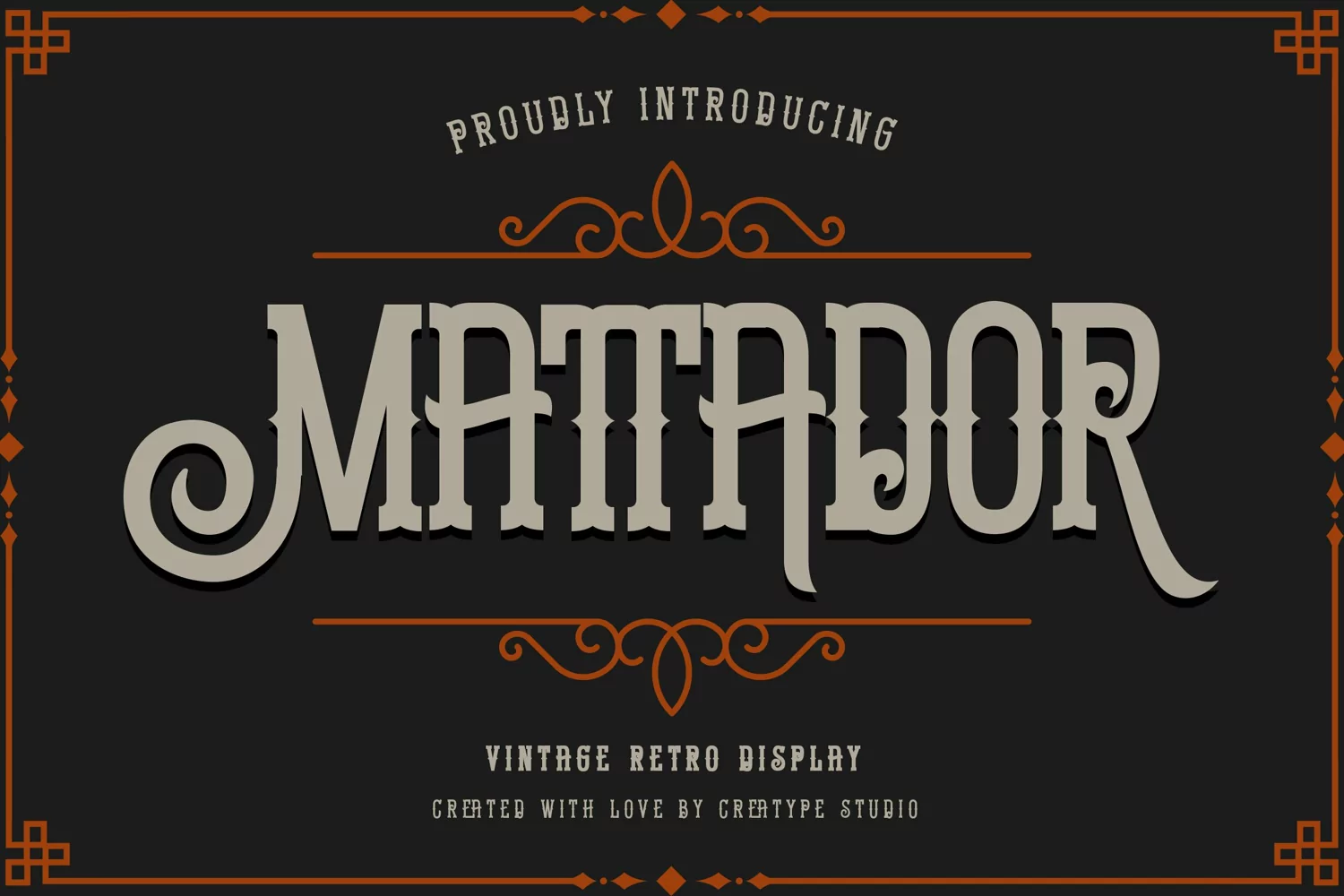
Mattador Vintage Retro Display
Mattador, a vintage display font that infuses nostalgia into modern design, perfect for capturing attention.
Mattador is perfect for branding projects, logos, wedding designs, social media posts, advertisements, product packaging, product designs, label, photography, watermark, invitation, stationery, and any projects that need handwriting taste.
• Ton of glyphs
• Ligature & Alternate